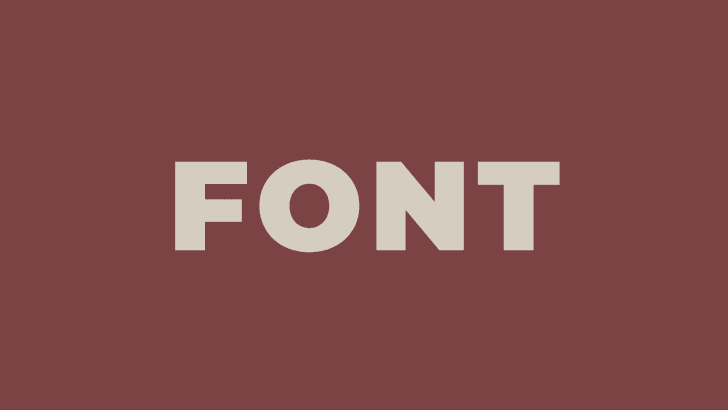
ENHANCING FONT ACCESSIBILITY IN YOUR DESIGNS
In the realm of design, fonts and typography are more than just a visual treat. They play a crucial role in making information accessible to everyone, regardless of individual abilities. Picture this: you’re trying to read a website, and the text is too small, too fancy, or simply hard to decipher. That’s where the concept of accessible fonts steps in – ensuring that everyone can effortlessly engage with your content. Let’s unravel the essence of accessibility fonts with straightforward insights.
Introduction: Navigating the World of Accessible Fonts
In the realm of design, fonts and typography are more than just a visual treat. They play a crucial role in making information accessible to everyone, regardless of individual abilities. Picture this: you’re trying to read a website, and the text is too small, too fancy, or simply hard to decipher. That’s where the concept of accessible fonts steps in – ensuring that everyone can effortlessly engage with your content. Let’s unravel the essence of accessibility fonts with straightforward insights.
Why Accessibility Fonts Matter in Real Life
Think about a time when you struggled to read a sign or a menu. Perhaps the font was too thin, or the contrast made your eyes strain. This is a glimpse into the challenges faced by individuals with varying visual abilities. Accessibility fonts are not just a design trend; they are a lifeline for those seeking information inclusively. Now, the question arises – how can you make your designs more accessible through thoughtful font choices?
How to Improve the Accessibility of Fonts and Typography in Your Designs
Let’s cut to the chase and outline simple steps to enhance the accessibility of fonts in your designs.
1. Choose Clear and Readable Fonts
What you see is what you get. Opt for fonts with clear shapes and legible characters. Steer away from overly ornate or overly condensed options that might pose readability challenges.
2. Prioritize Contrast for Clarity
Ensure a clear distinction between text and background. High contrast improves visibility, making it easier for everyone to discern the words on the screen or page. Black text on a white background or vice versa is a classic choice for optimal readability.
3. Size Matters: Embrace Legibility
Avoid the squinting struggle by opting for an appropriate font size. Aim for a minimum size of 16 points for body text to accommodate various visual needs. When in doubt, larger and clearer fonts are your friends.
4. Mind Your Spacing: Letter and Line Spacing
Give your text some breathing room. Ample letter spacing and well-distributed line spacing contribute to a comfortable reading experience. Steer clear of cramming letters together or leaving them too distant, finding that sweet spot for clarity.
Conclusion: A Clear Path to Inclusive Design
In closing, improving the accessibility of fonts in your designs isn’t a complex puzzle. By selecting clear, readable fonts, prioritizing contrast, adjusting sizes, and spacing thoughtfully, you pave the way for a more inclusive and user-friendly design. Remember, the goal is not just to make your content visually appealing but to make it accessible to everyone. So, let’s embark on a journey where fonts become bridges, connecting diverse individuals to the world of information seamlessly.